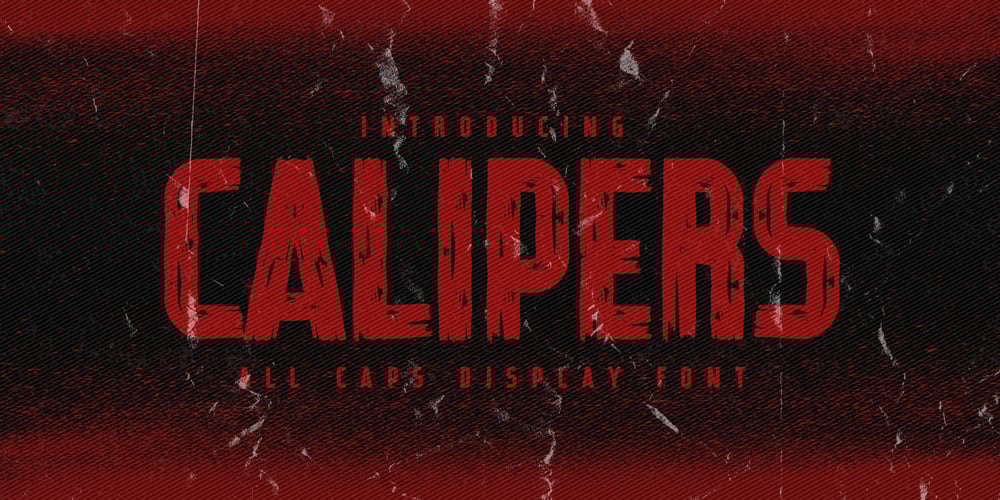
Calipers Font Family was designed by Abdul Malik Wisnu, Anang Fibriyanto and published by Gassstype. Calipers contains 1 styles and family package options. Here comes our new font CALIPERS this is a All Caps Display Font that is written casually and quickly.Signature Style and classy style.This font are handmade with brushes on Procreate. Then crafted carefully drawn into vector format.this font is great for your creative projects such as watermark on photography, and perfect for logos & branding, photography, invitation, watermark,advertisements,product designs, stationery, wedding designs,label ,product packaging, special events or anything that need handwritting taste.